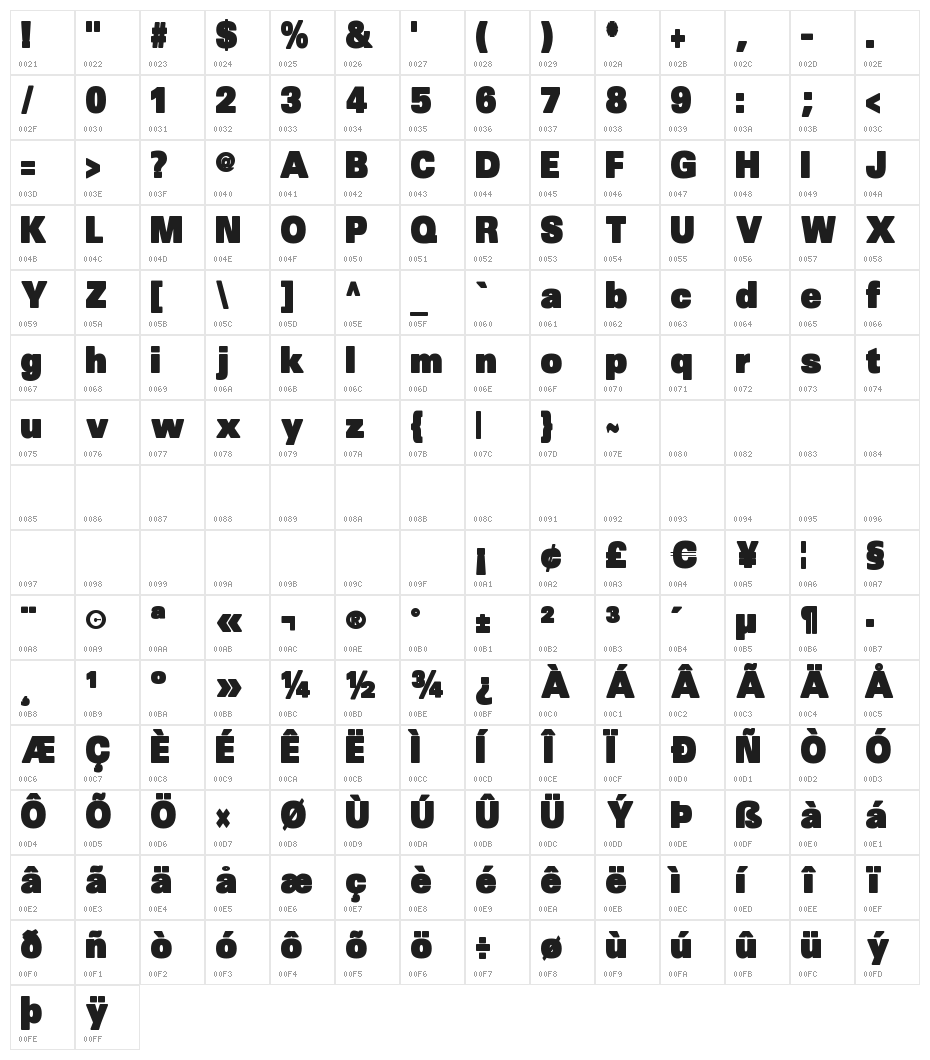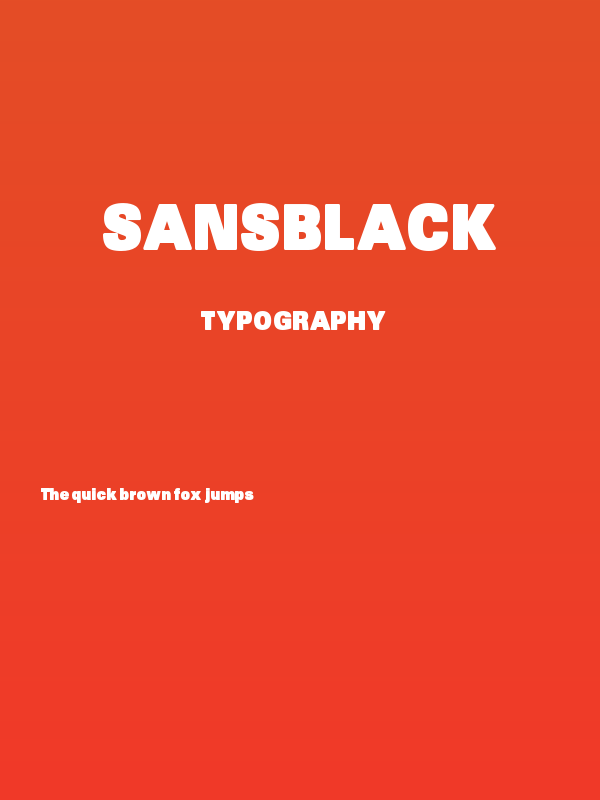
SansBlack Font
SansBlack Description
This font is characterized by its bold and robust appearance, featuring thick strokes and a strong presence. The uppercase and lowercase letters are designed with a uniform thickness, creating a sense of balance and stability. The numbers and special characters maintain the same boldness, ensuring consistency across all elements. The font's design is straightforward and impactful, making it suitable for attention-grabbing applications. Its simplicity and strength make it versatile for various design needs.
| Proposed Projects | Ideal for headlines, posters, branding, and any project requiring a strong visual impact. |